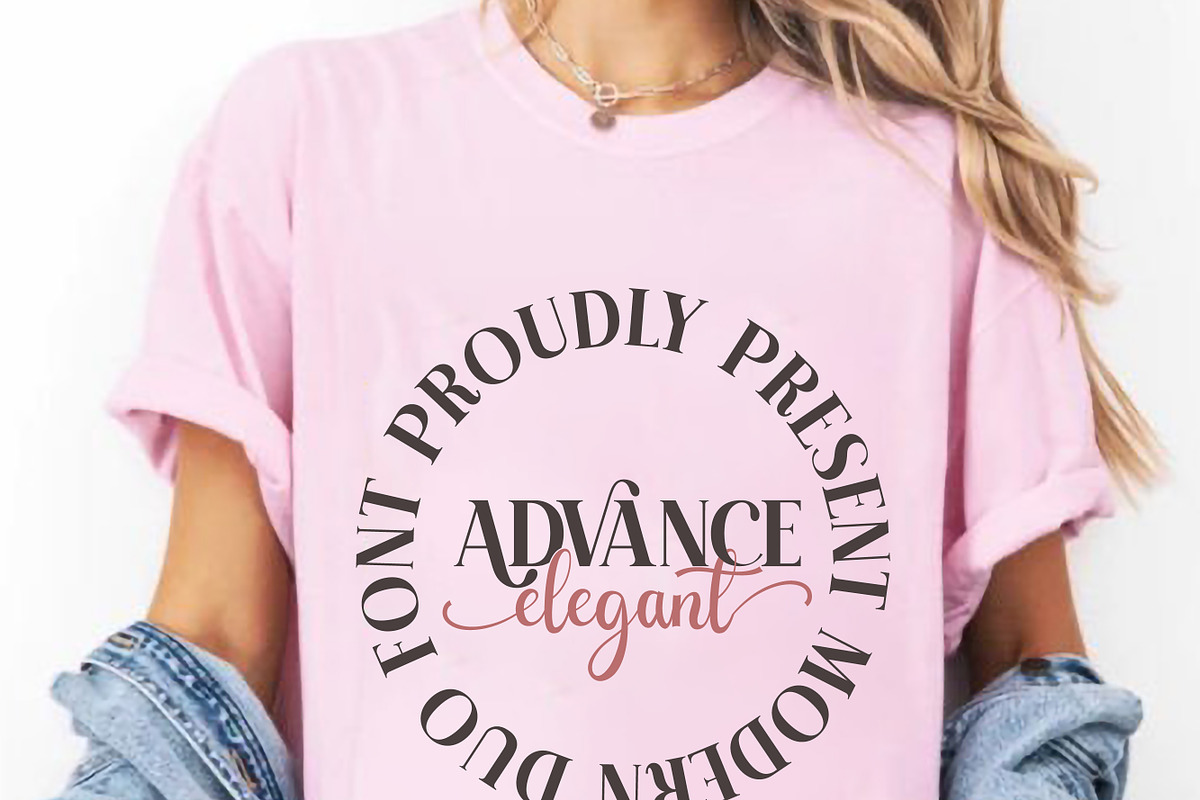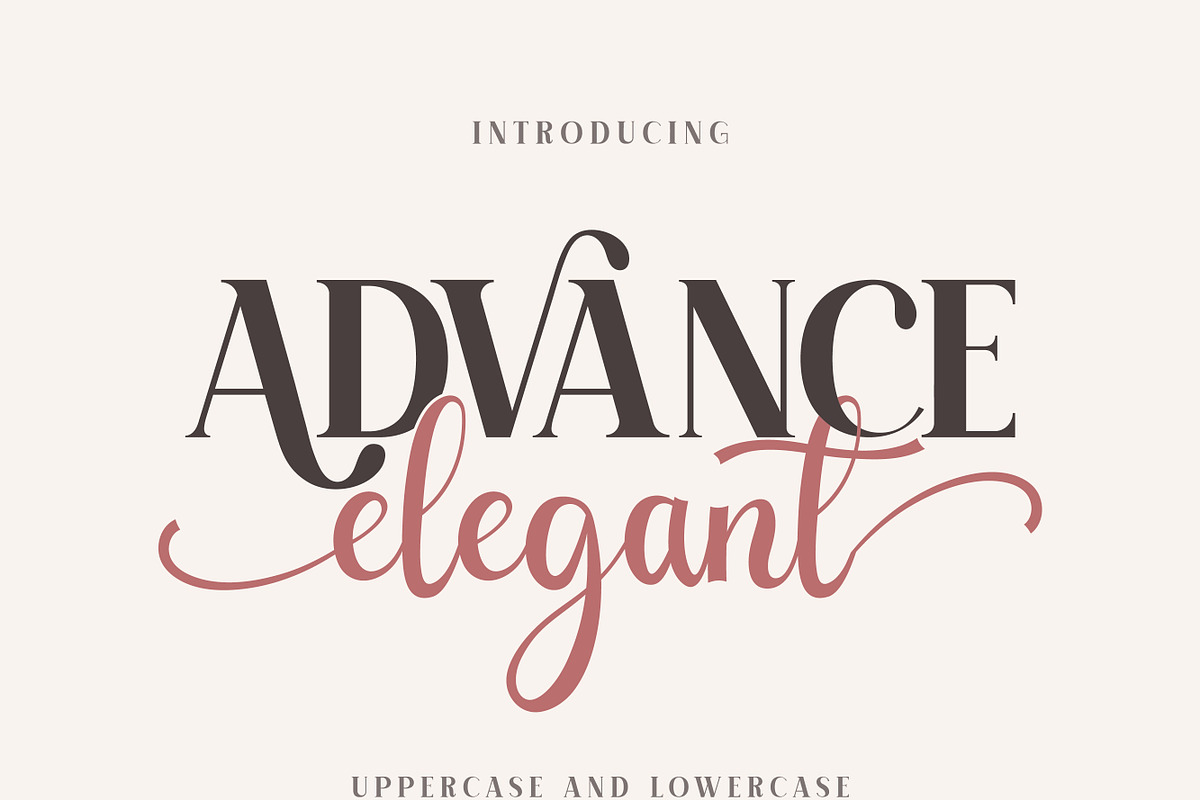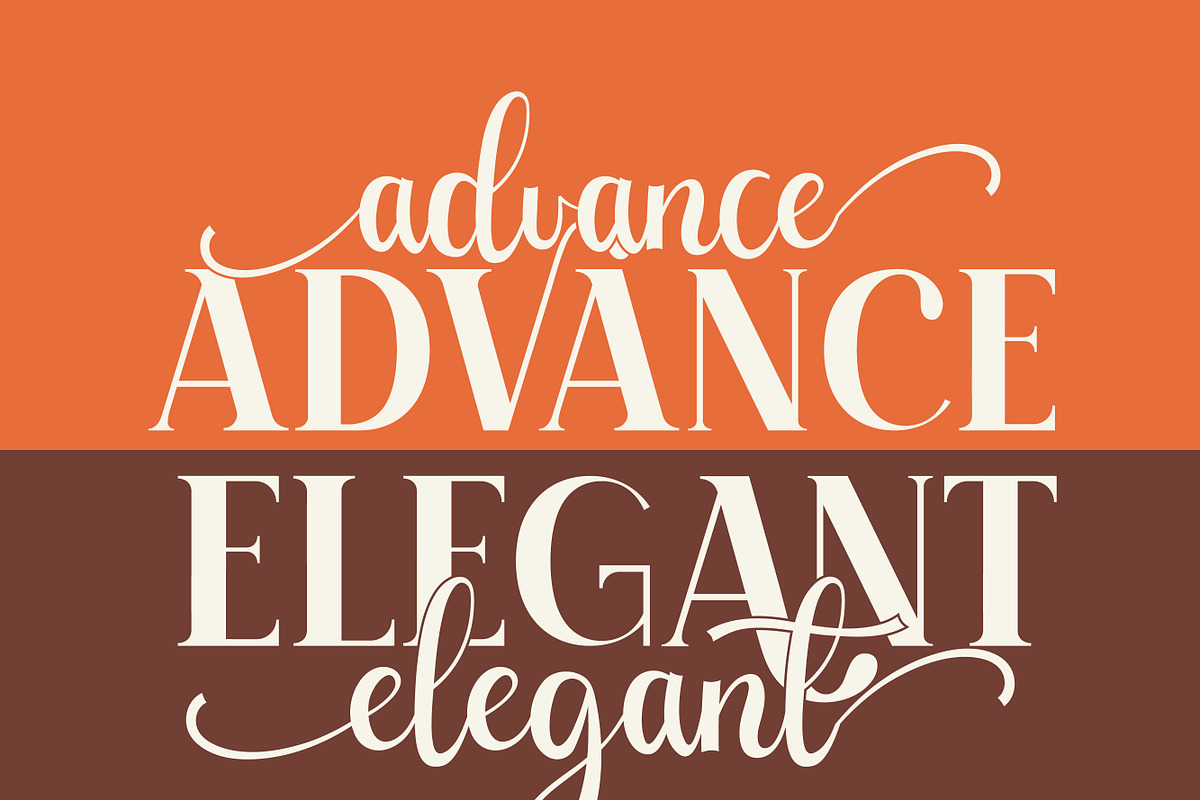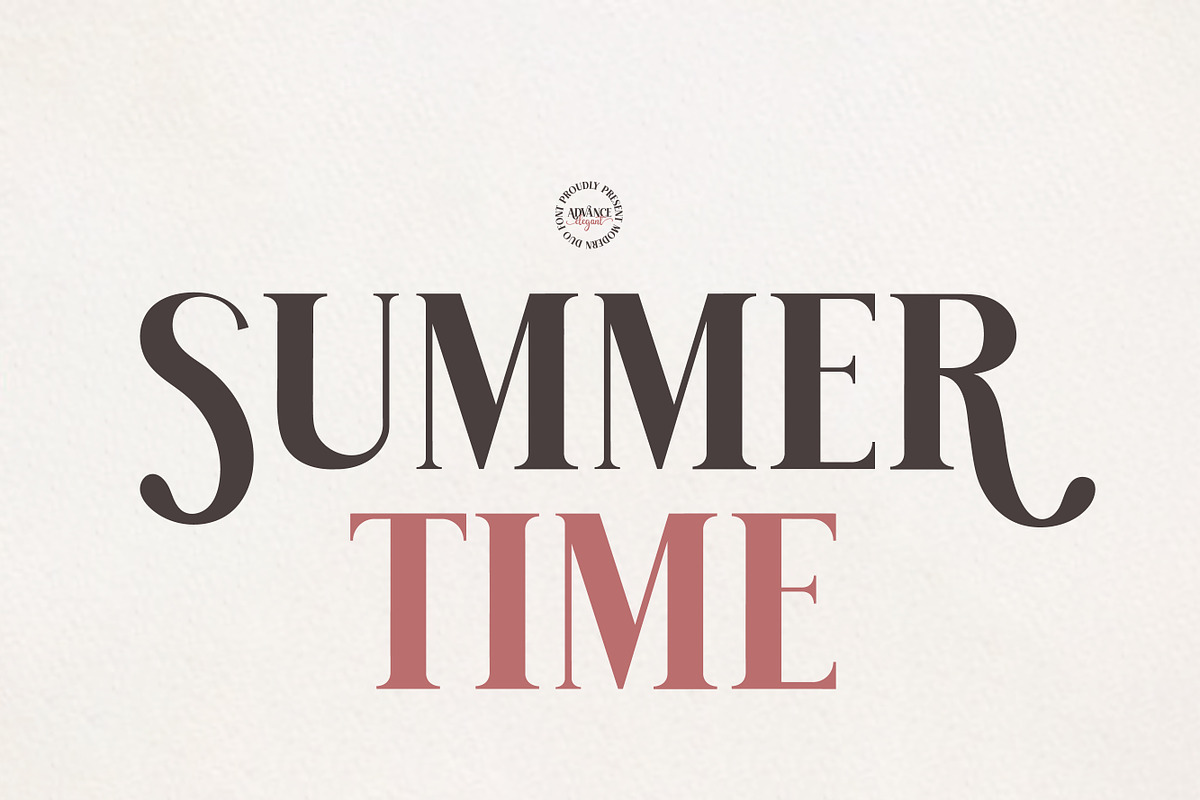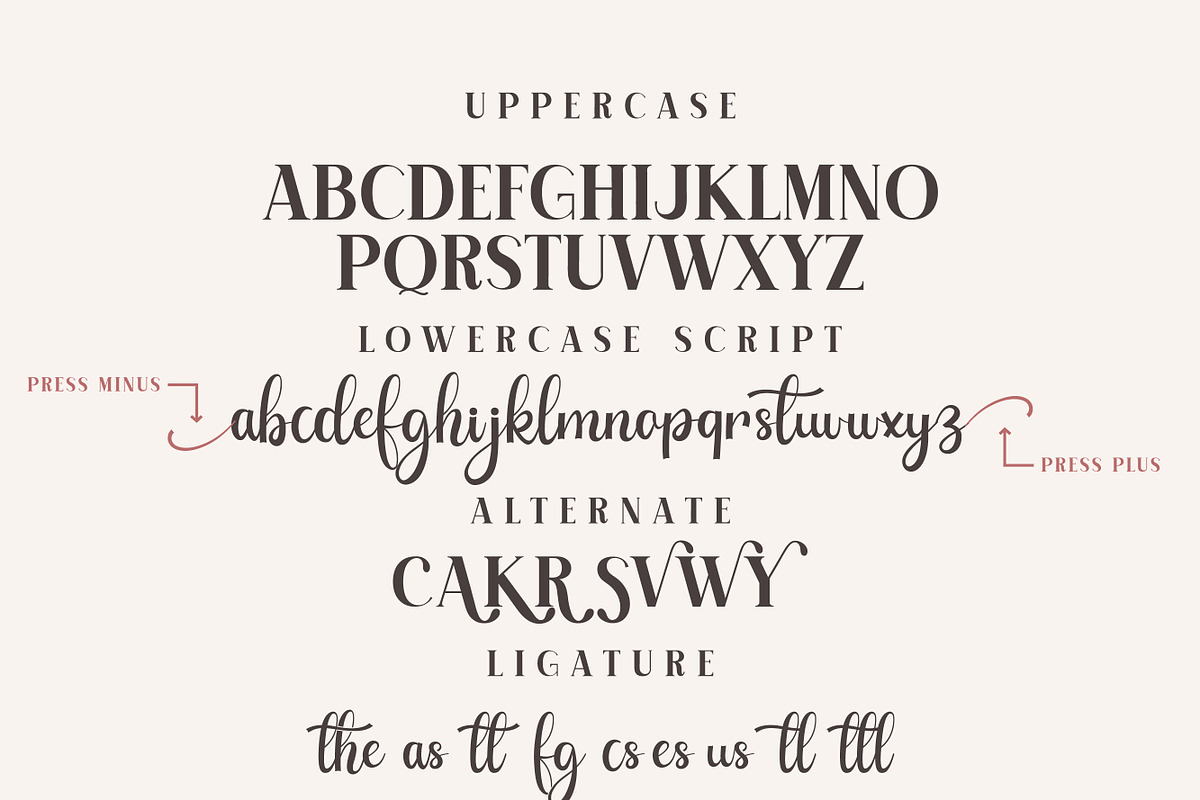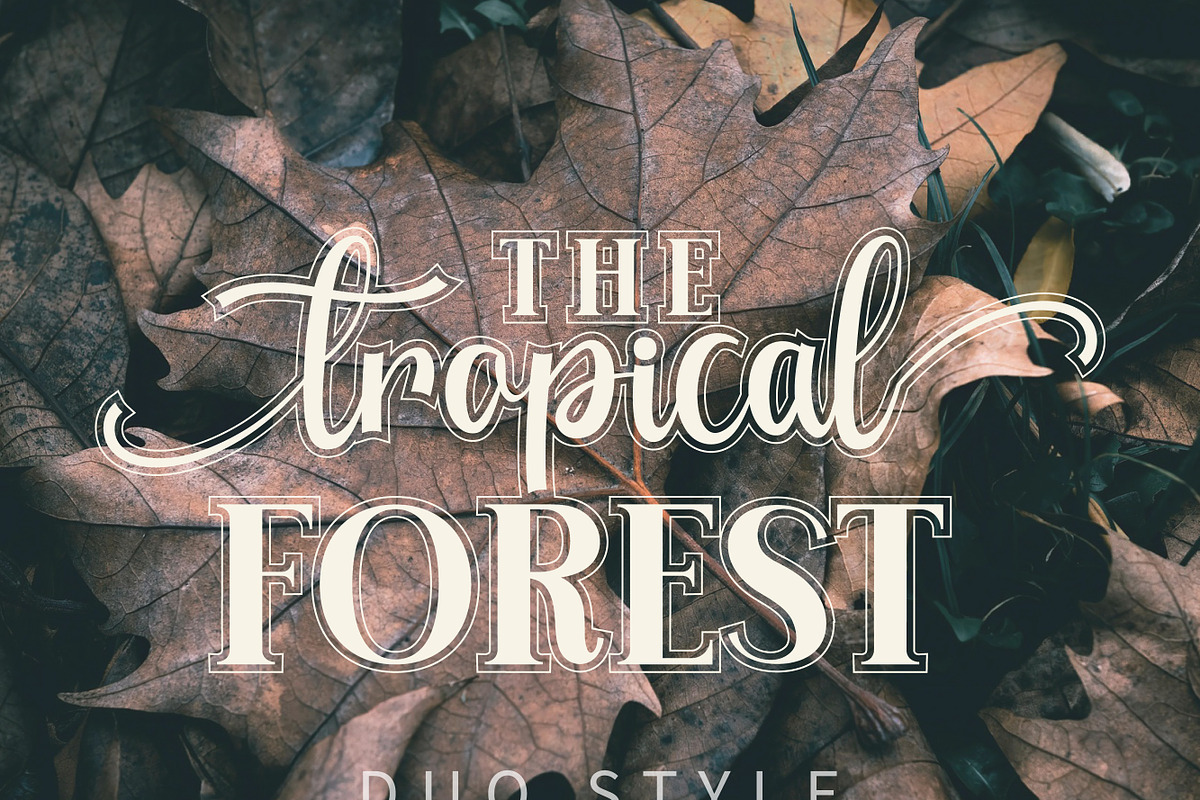
Advance Elegant
Advance elegant is an incredibly unique and trendy stylish duo font (modern and script). This font can look serif and handwriting script style, so add it confidently and playing, and modern with alternative substitutes and ligatures, use it to create spectacular designs!